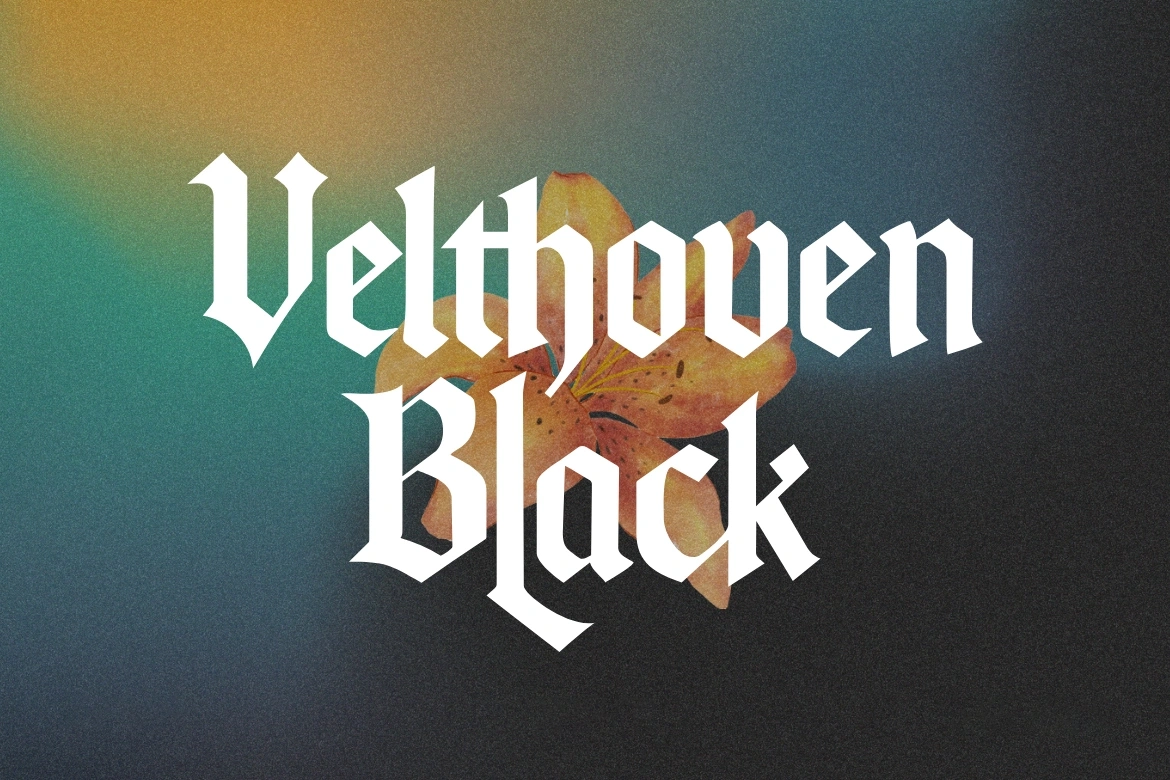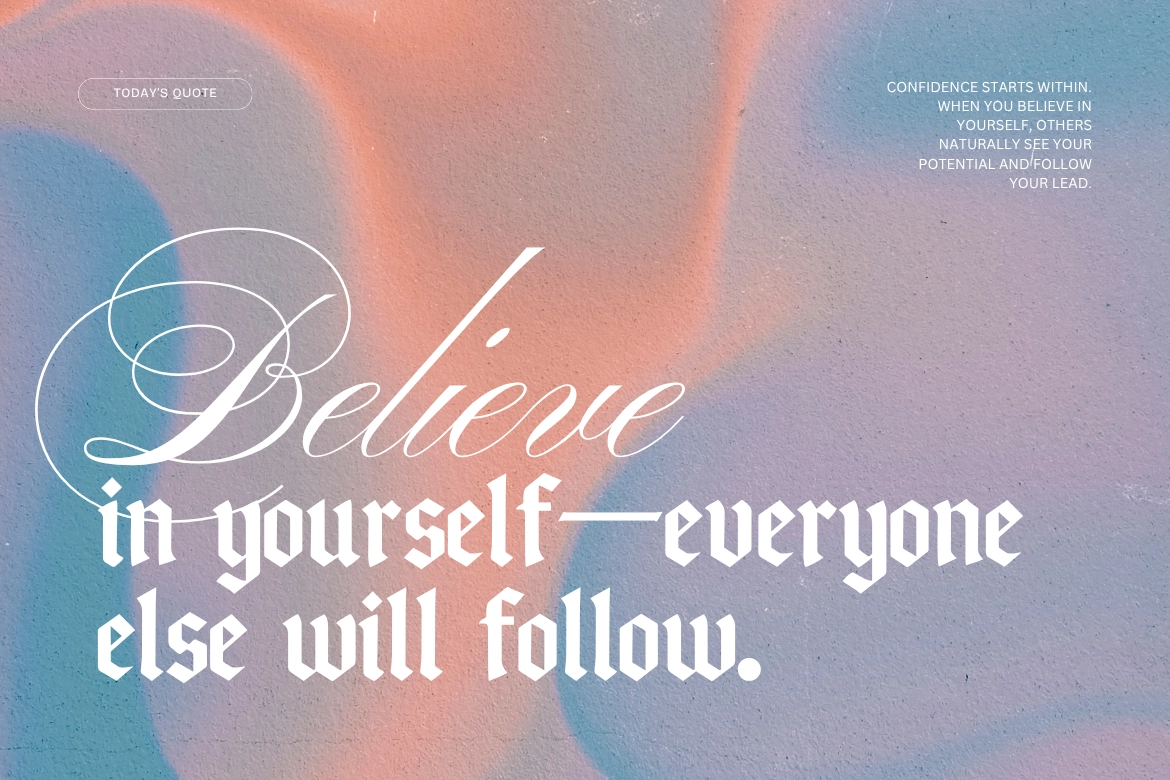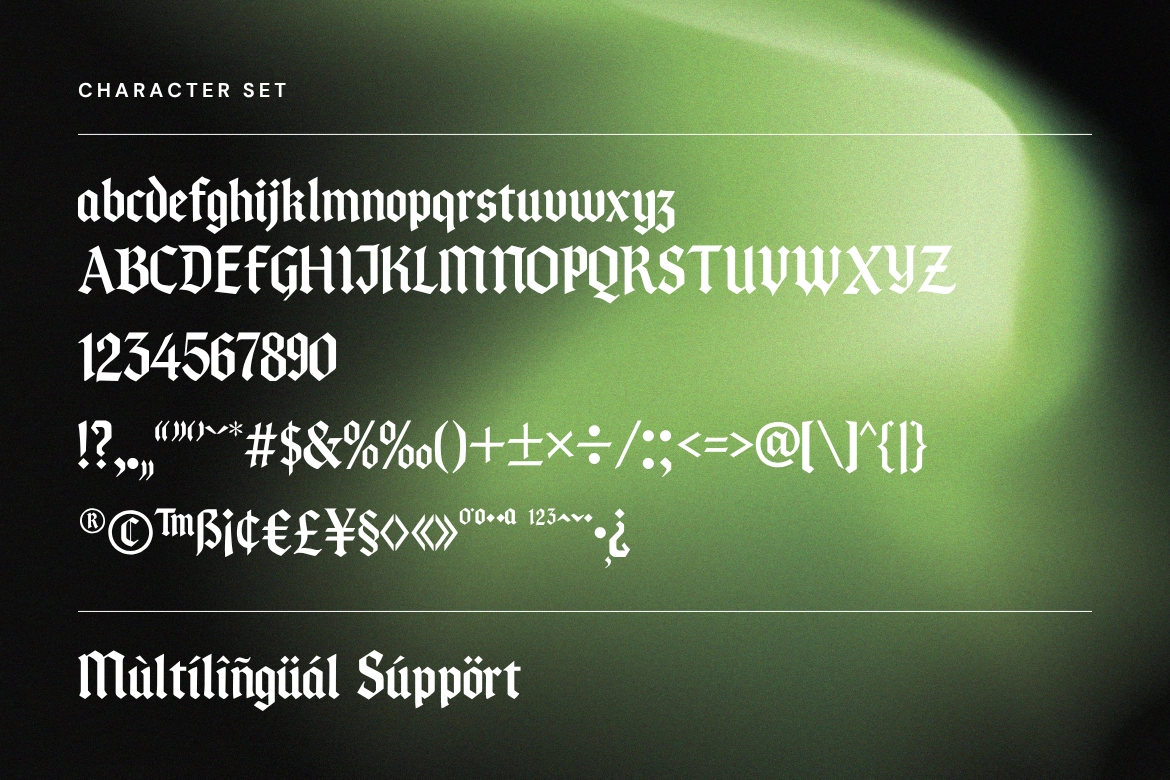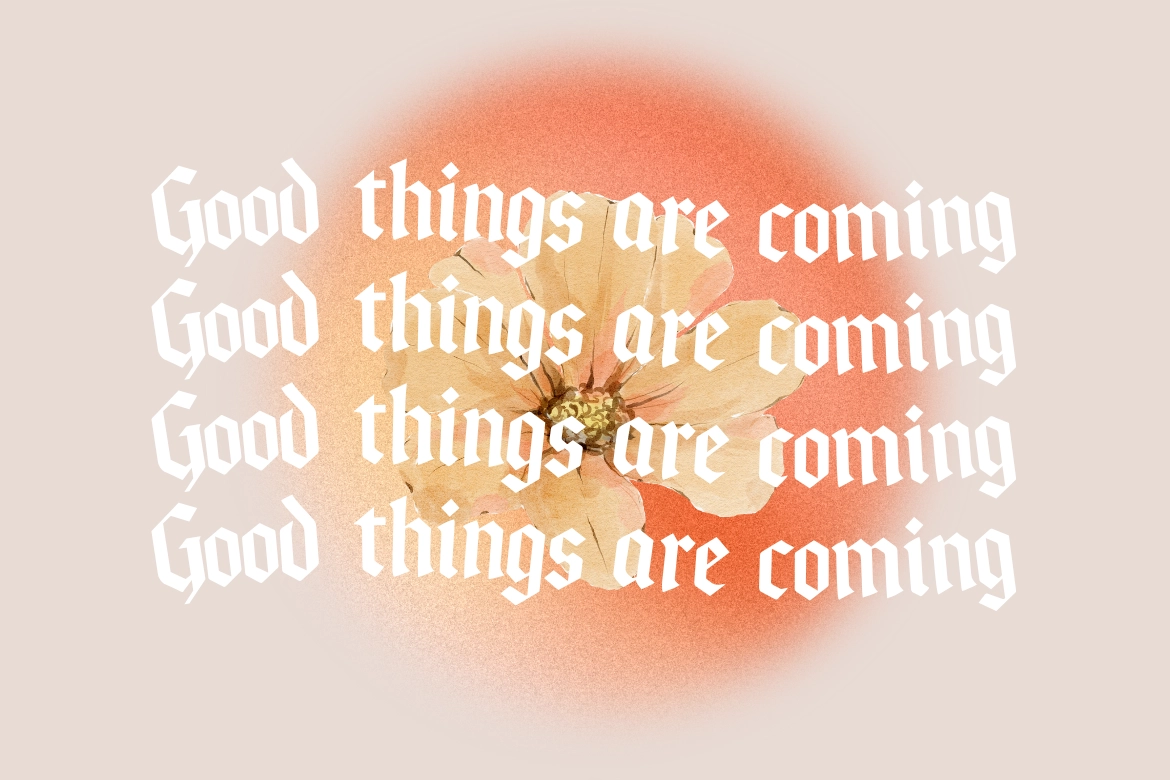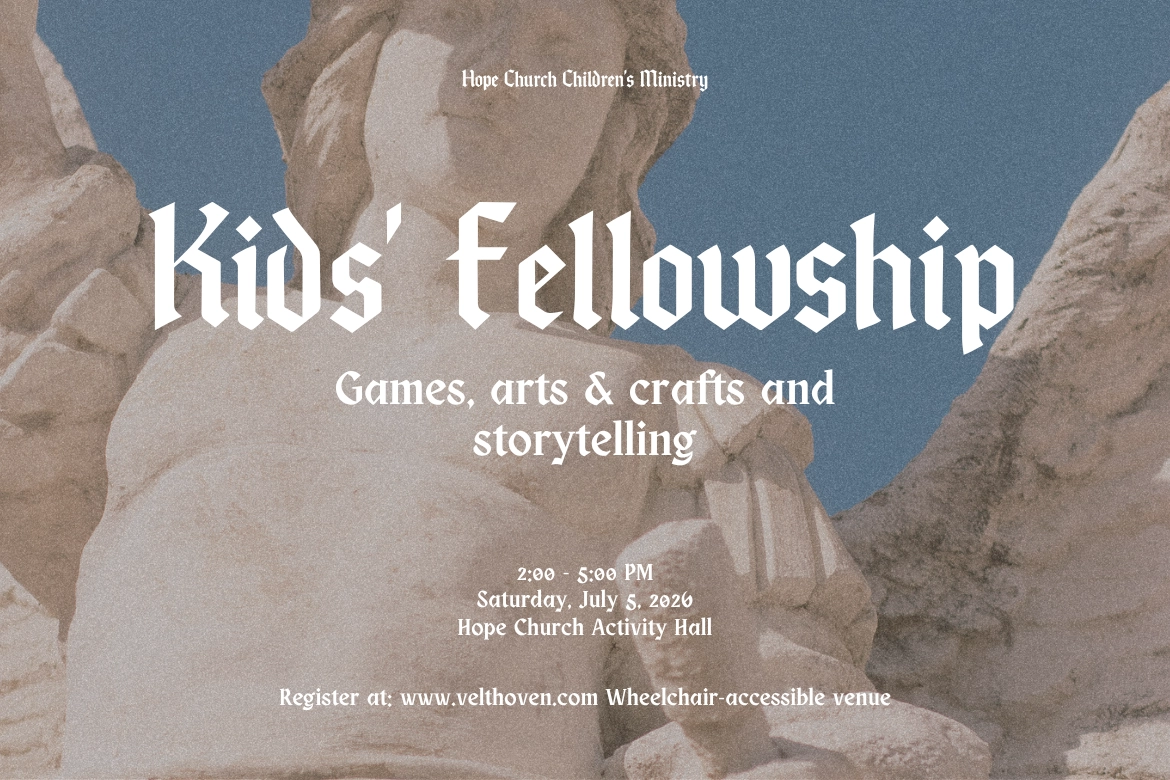
Velthoven Black – Modern Blackletter
Step into a world of bold expression with Velthoven Black, a modern blackletter typeface that redefines tradition with contemporary attitude.
Combining the timeless strength of Gothic forms with modern proportions, Velthoven Black delivers power, precision, and edge — perfect for designers who want to make a statement that’s both classic and daring.
Each letter is crafted with sharp contrast and elegant structure, making it ideal for luxury branding, editorial design, tattoos, or bold logotypes that command attention.
• Uppercase & lowercase
• Numerals & punctuation
Perfect For
• Modern gothic branding
• Apparel & streetwear design
• Poster & headline typography
• Music covers & tattoo design
• Editorial layouts
Bring bold craftsmanship and modern attitude together with Velthoven Black — where heritage meets rebellion.